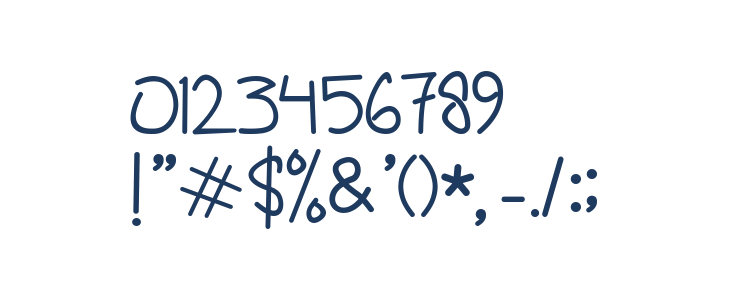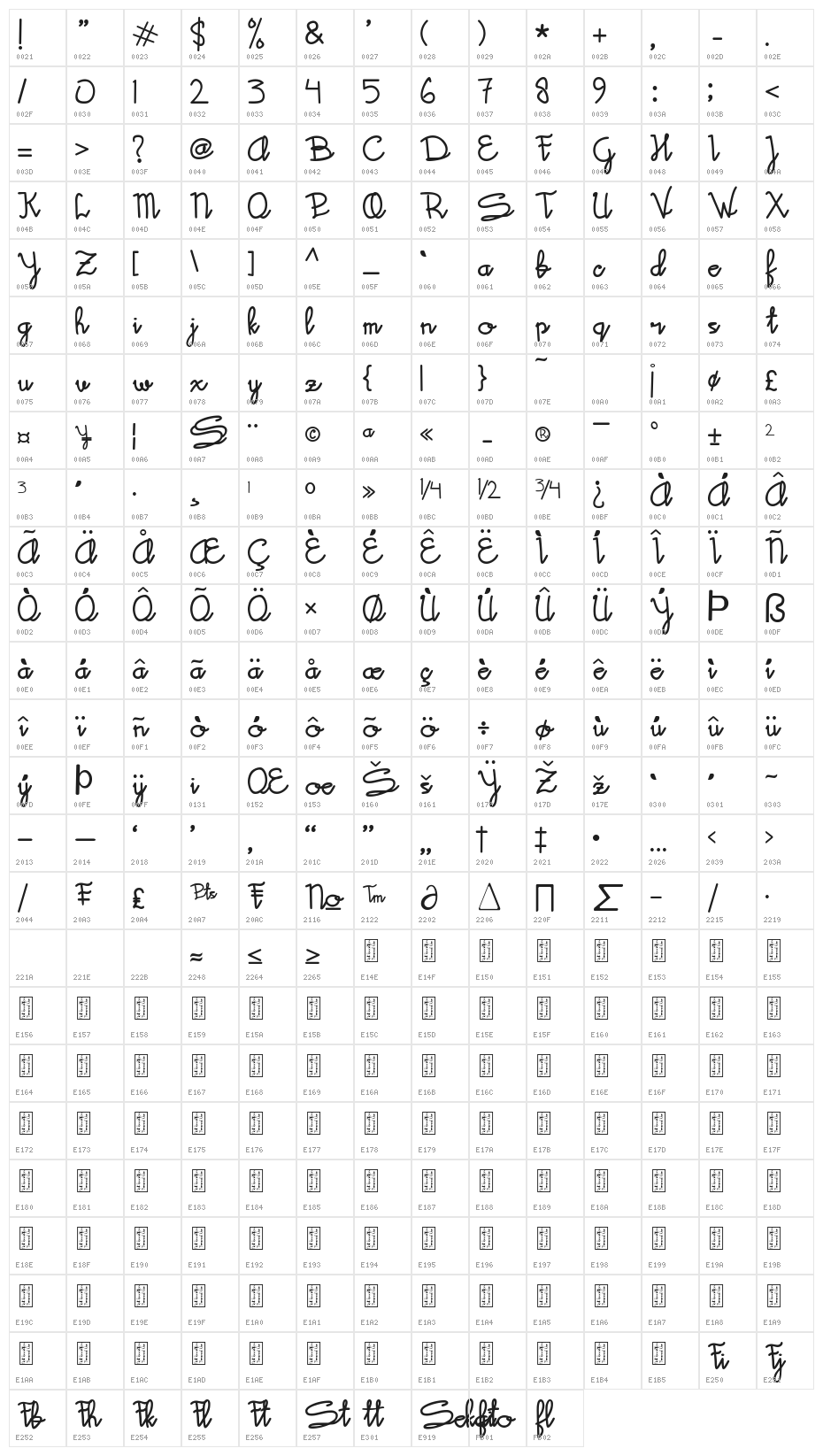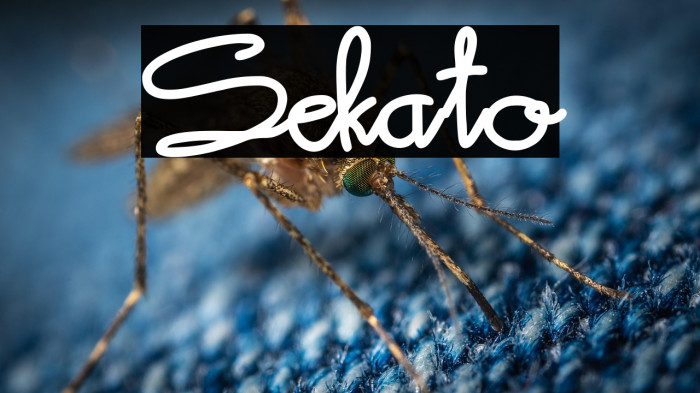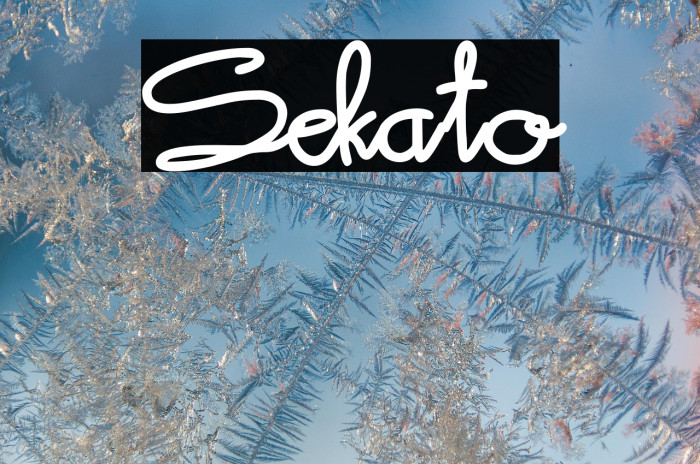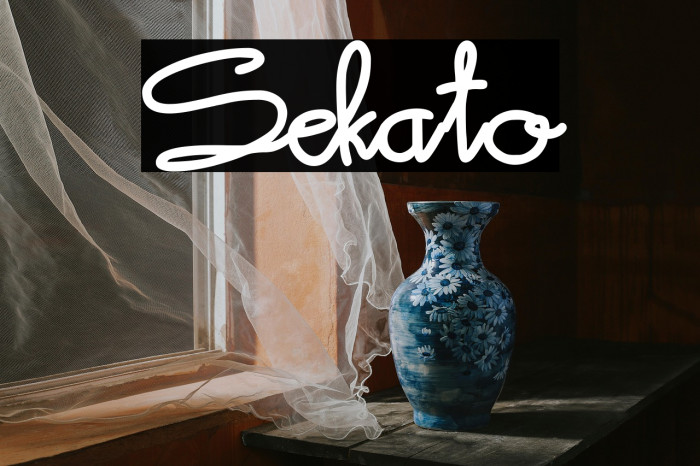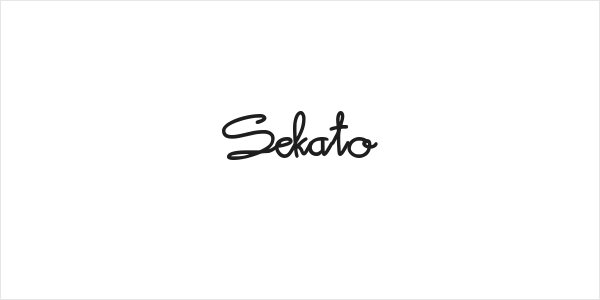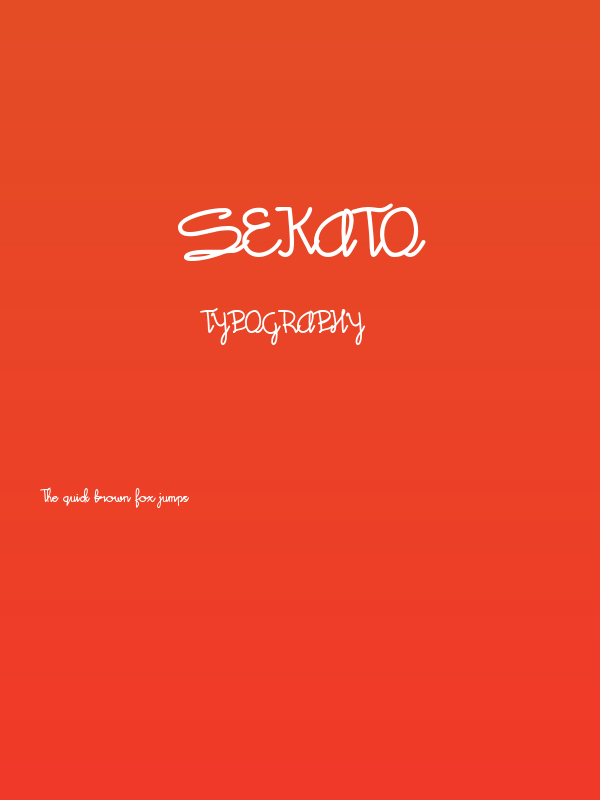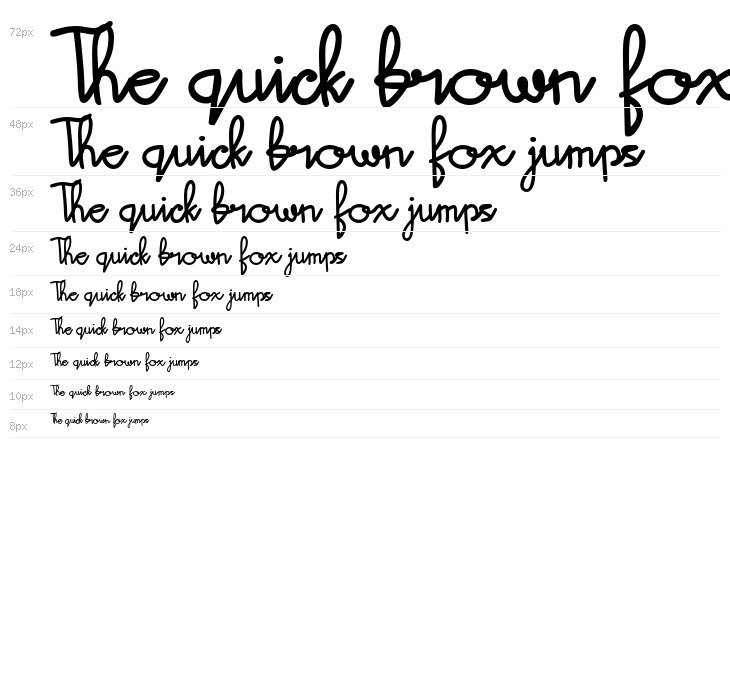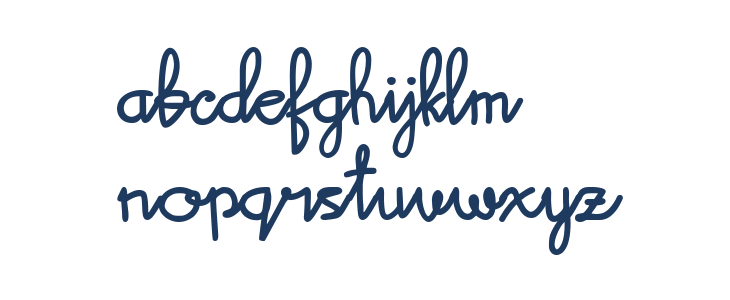
Sekato Font
Sekato Description
This font features a playful and casual handwritten style, characterized by its fluid and connected letterforms. The uppercase letters are bold and slightly slanted, giving a dynamic and energetic feel. The lowercase letters maintain a consistent flow, with some letters extending below the baseline, adding to the informal aesthetic. The numerals are rounded and maintain the same playful style, ensuring readability while keeping the overall look cohesive. Special characters are creatively integrated, maintaining the font's whimsical nature. This font is ideal for projects that require a personal touch, such as invitations, greeting cards, or playful branding.